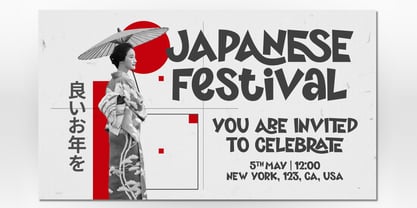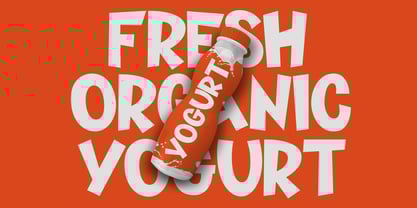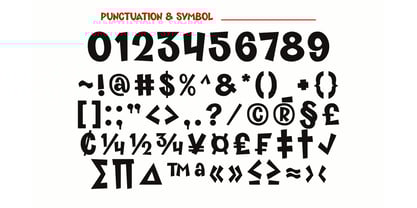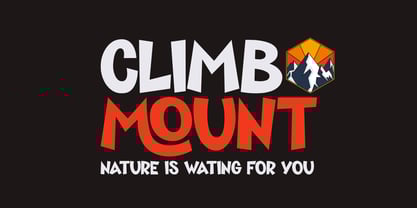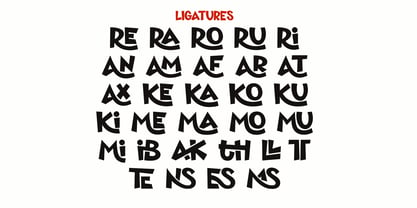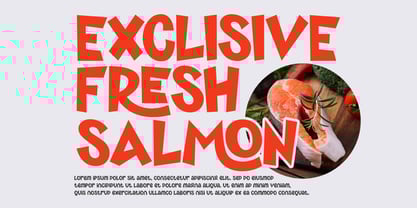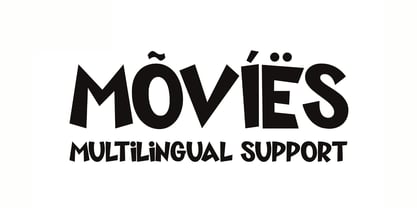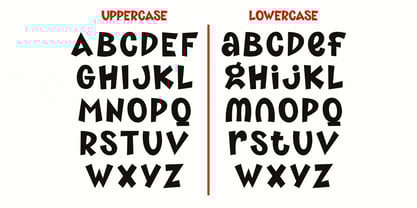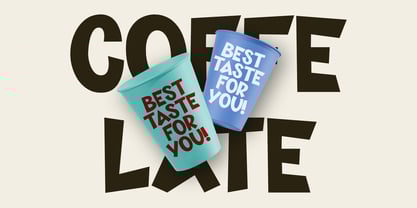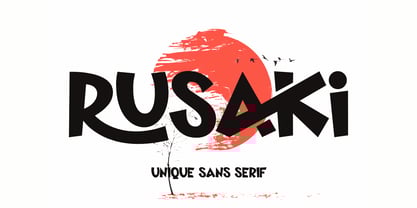
Rusaki
by Sealoung
The Rusaki Font Family was designed by Saiful Anwar and published by Sealoung. Rusaki contains 1 styles. More about this family
Rusaki is a unique and sleek sans-serif font that brings energy, action, and a touch of distinctiveness to your creative projects. Its solid and compact letterforms are enriched with unconventional design details, creating a fresh and stylish visual character. The unique elements of Rusaki give it a bold and futuristic impression, making it an ideal choice for gaming logos, esports branding, and action-themed designs that require a distinctive identity.
Unique Features of Rusaki Sans Serif:
• Uppercase and lowercase letters with unique character in every style
• Full support for punctuation, numbers, and symbols
• Multilingual support for global versatility
• Unique ligatures
• OpenType features designed for maximum design impact
Designers: Saiful Anwar
Foundry: Sealoung